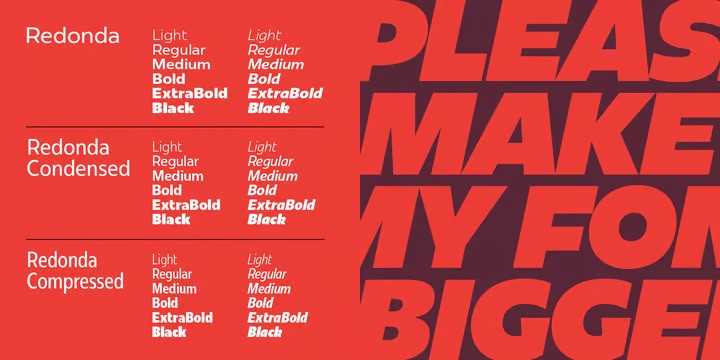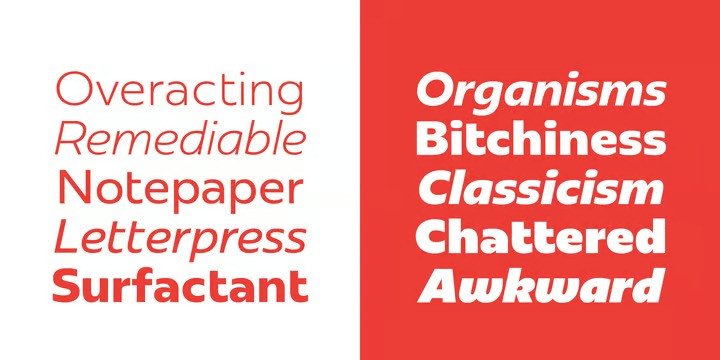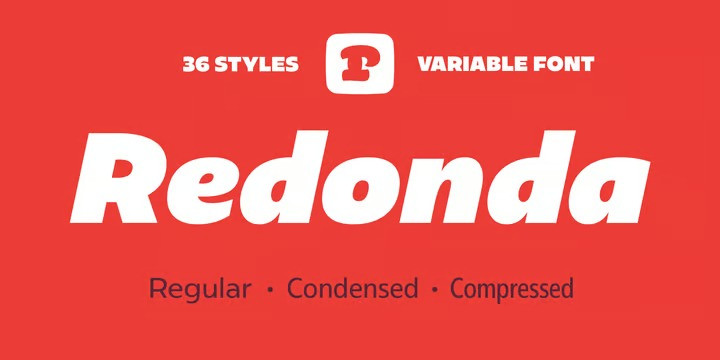
Plau Redonda Font
Plau Redonda Sans Serif Font Family. Humanist on one hand, geometric wannabe on the other
Born from the need of having a custom font for our own branding, Redonda became too big to keep just for us. Like that, came to light Plau’s 10th retail font, the first one designed by Carlos Mignot.
The font’s personality is a result of a search for extreme impact. Having started out as a exclusively Black geometric face, it became a full, versatile humanist sans. While it maintains the impact that inspired it, it also offers performance for both UI and body copy. This balance reflects the font’s creative process: at first it referenced historic examples, but we also made sure it worked as a contemporary face.